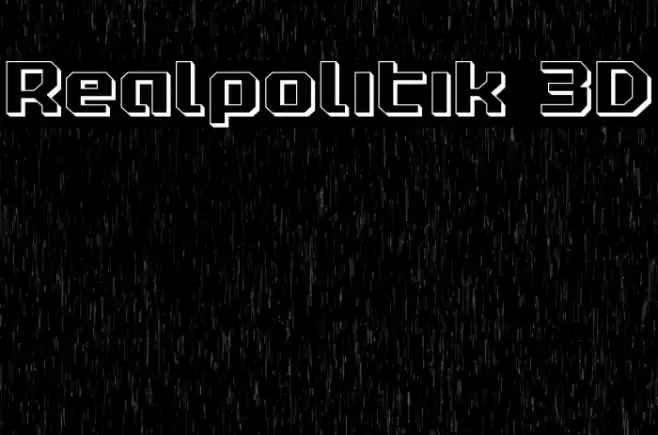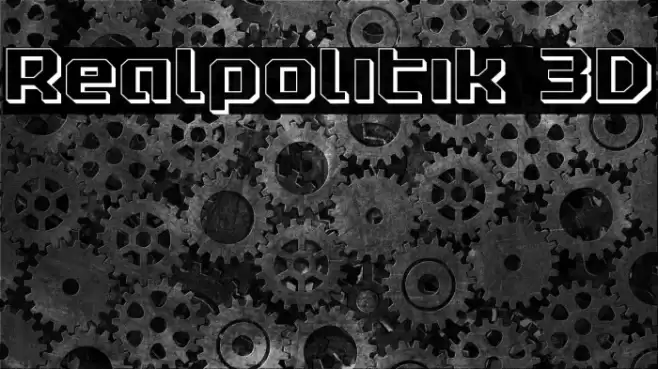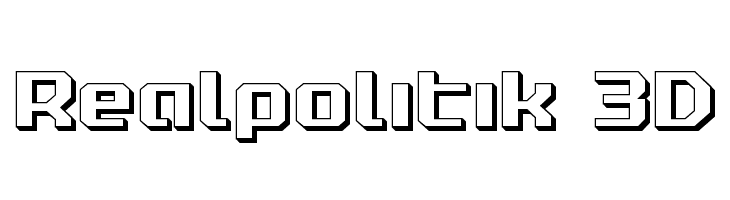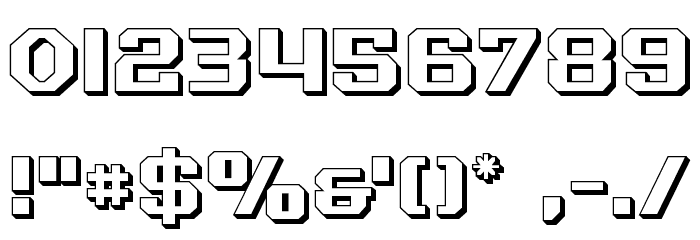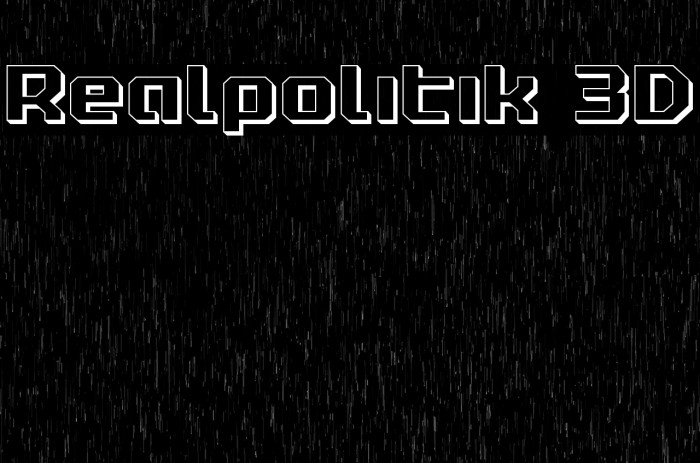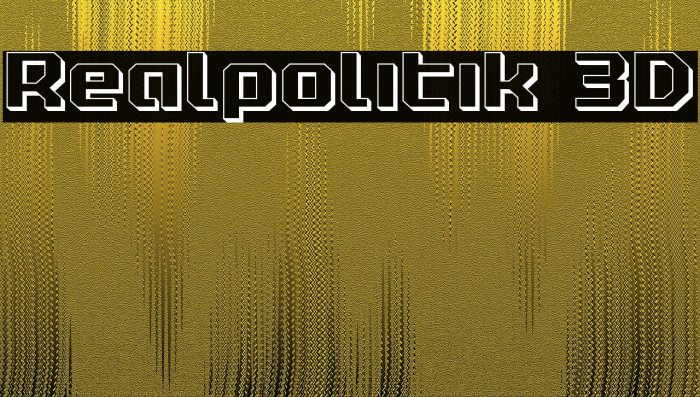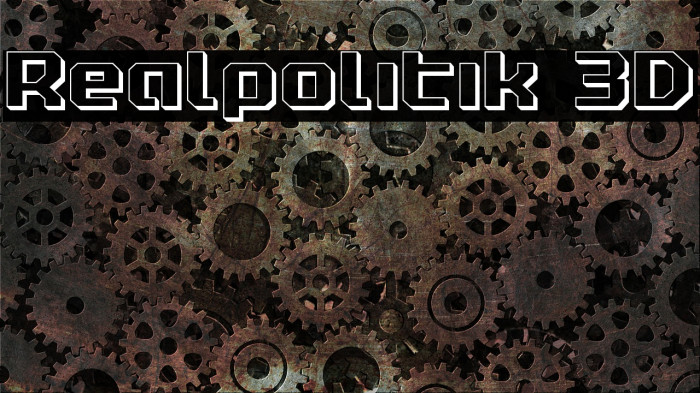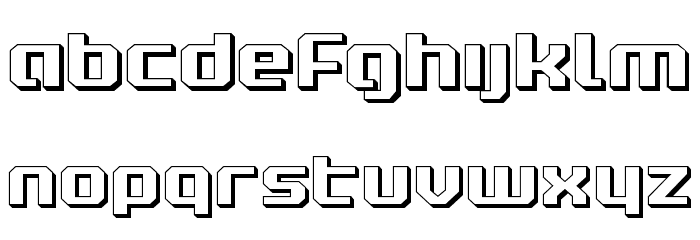
Realpolitik 3D Font
Realpolitik 3D Description
This font features a bold, three-dimensional design with a geometric and angular style. The characters are outlined, creating a shadow effect that gives them depth and a striking visual presence. The uppercase and lowercase letters maintain a consistent structure, with sharp edges and a modern aesthetic. The numerals and special characters follow the same design principles, ensuring uniformity across all glyphs. The font's unique 3D effect makes it stand out, making it ideal for projects that require a strong visual impact.
A bold, geometric 3D font with an outlined, angular design from Uncategorized fonts.
- Proposed Projects: Ideal for posters, logos, video game graphics, and any project requiring a bold, eye-catching typeface.